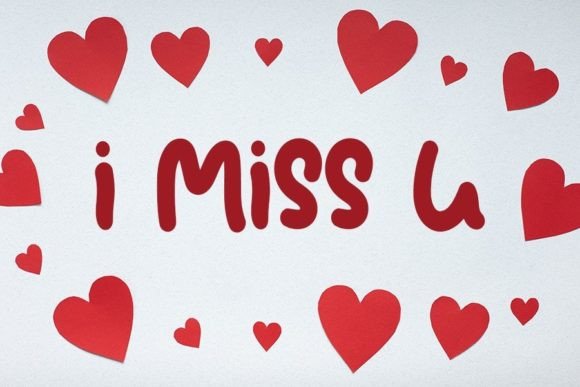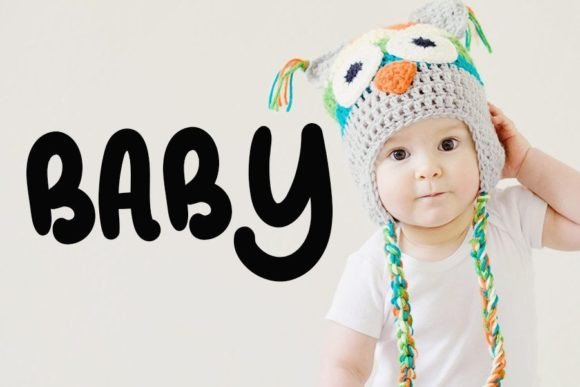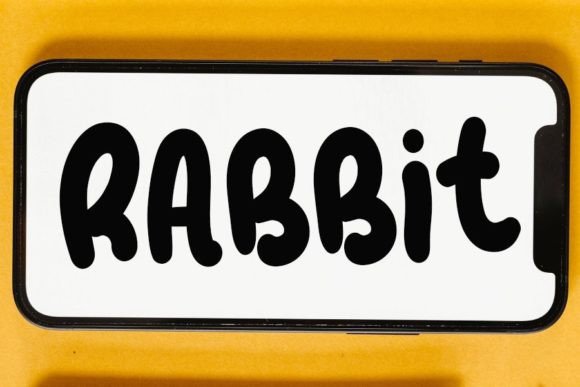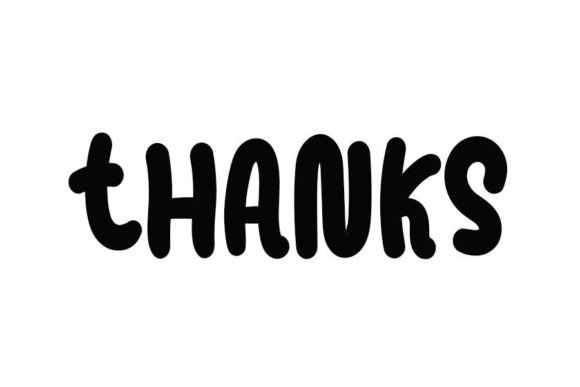
Introducing December Font: Elevate Your Designs with Elegance
Are you on the hunt for a font that exudes elegance and sophistication? Look no further than December Font, a bold and beautiful handwritten font that is sure to capture your heart. With its incredibly distinct and timeless style, December Font is the perfect addition to your favorite projects. In this article, we’ll dive into the world of December Font and explore its features, benefits, and uses.
The Story Behind December Font
December Font is a carefully crafted handwritten font that boasts an elegant touch. Its unique design makes it stand out from the crowd, perfect for designers and crafters looking to add a touch of sophistication to their work. Whether you’re creating a logo, branding materials, or social media graphics, December Font is sure to make a statement.
Key Features of December Font
- Bold and Beautiful: December Font is a bold and stunning font that commands attention. Its beautiful handwritten design makes it perfect for a wide range of projects.
- Elegant Touch: The font’s elegant touch adds a level of sophistication to any design, making it perfect for high-end branding and marketing materials.
- Handwritten Style: December Font’s handwritten style gives it a personal and unique feel, perfect for adding a touch of warmth and personality to your designs.
- Timeless Appeal: The font’s classic design ensures that it will remain timeless and relevant for years to come, making it a valuable addition to your font library.
Benefits of Using December Font
So why choose December Font for your next project? Here are just a few benefits of using this stunning font:
- Instant Recognition: December Font’s unique design makes it instantly recognizable, helping your brand stand out from the competition.
- Emotional Connection: The font’s handwritten style creates an emotional connection with your audience, making your message more relatable and engaging.
- Versatility: December Font is versatile and can be used in a wide range of projects, from logos and branding materials to social media graphics and more.
Using December Font in Your Designs
December Font is perfect for a wide range of projects, including:
- Logos and Branding: Use December Font to create a stunning logo or branding materials that exude elegance and sophistication.
- Social Media Graphics: Add a touch of elegance to your social media graphics with December Font, perfect for creating eye-catching posts and stories.
- Wedding and Event Stationery: December Font is perfect for creating beautiful wedding and event stationery, including invitations, menus, and more.
- Packaging and Product Design: Use December Font to add a touch of elegance to your packaging and product design, helping your products stand out on store shelves.
Tips and Tricks for Getting the Most Out of December Font
Here are a few tips and tricks for getting the most out of December Font:
- Experiment with Colors: December Font looks stunning in a range of colors, so don’t be afraid to experiment and find the perfect hue for your design.
- Mix and Match: Combine December Font with other fonts to create a unique and eye-catching design.
- Pay Attention to Kerning: Make sure to adjust the kerning to ensure that your text looks professional and polished.